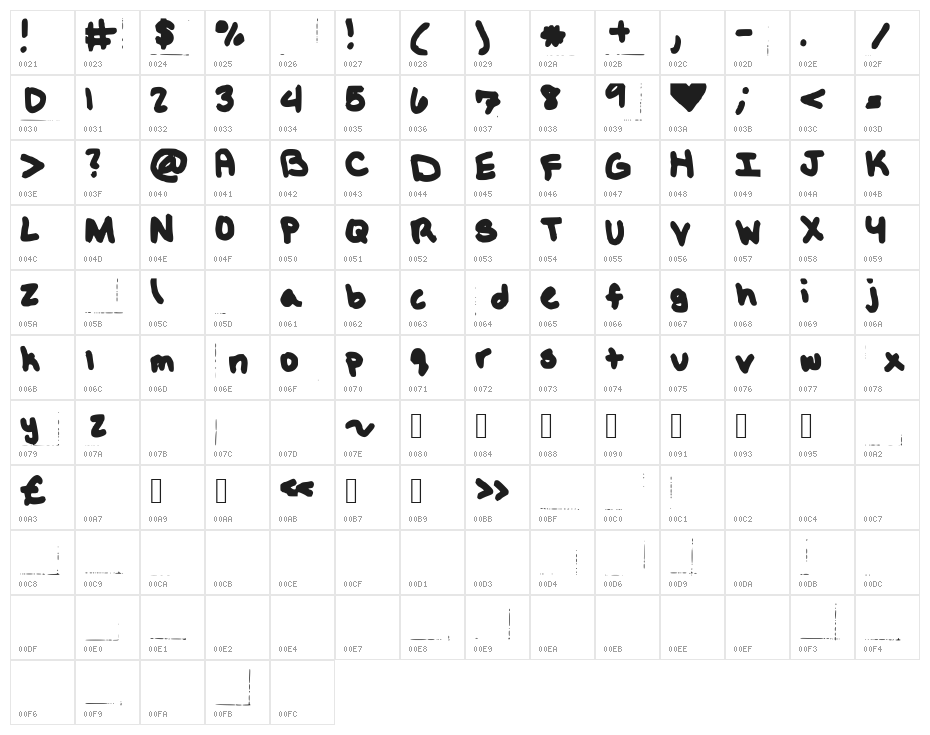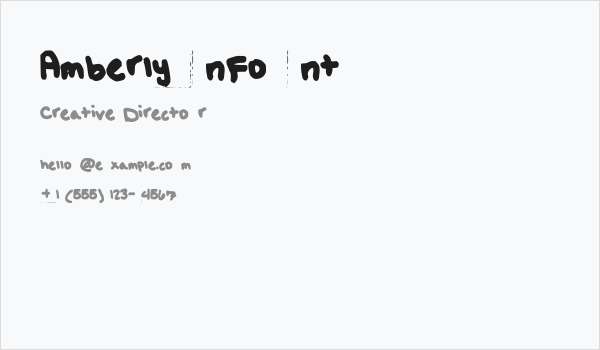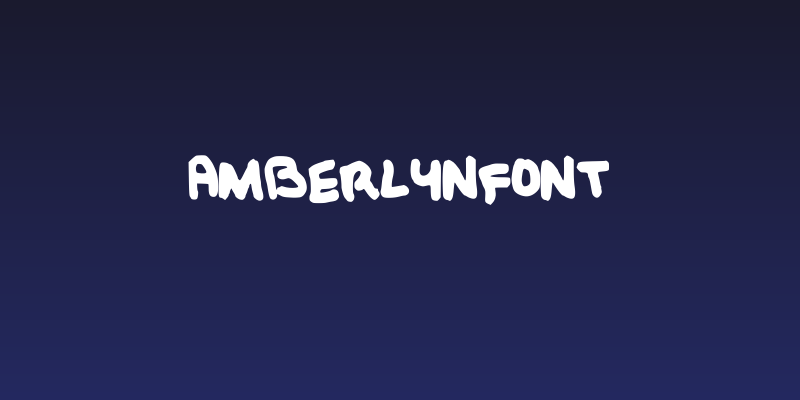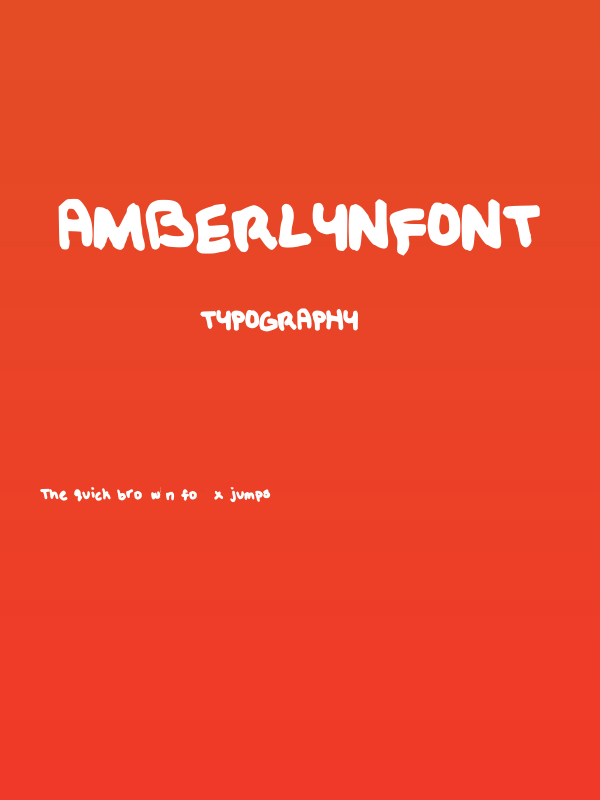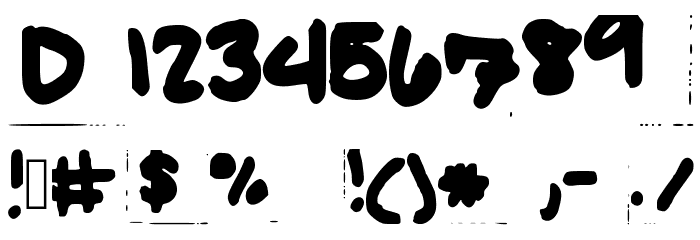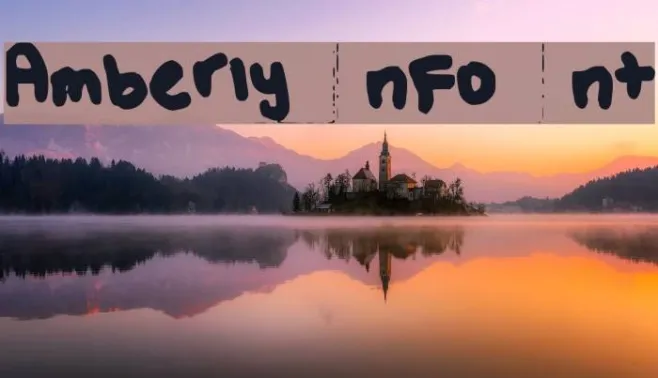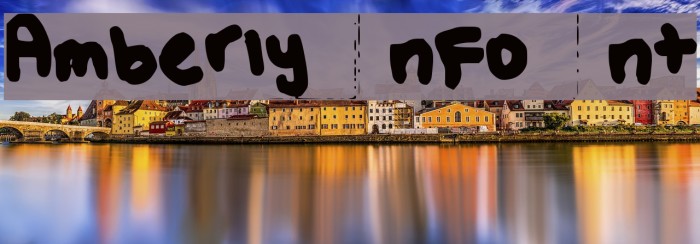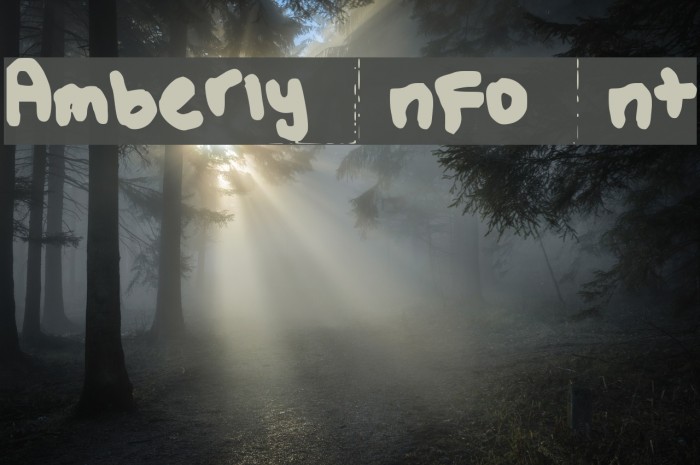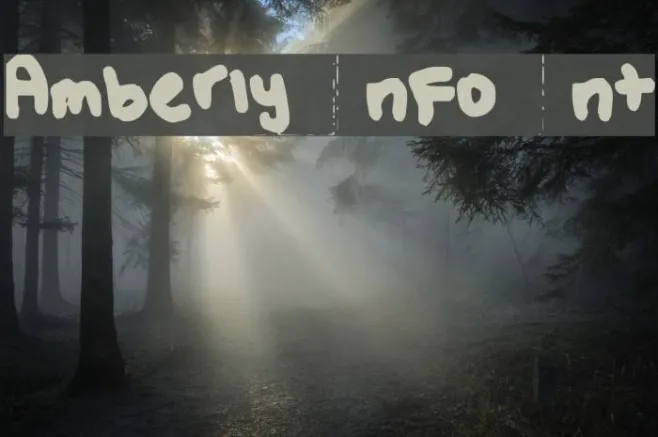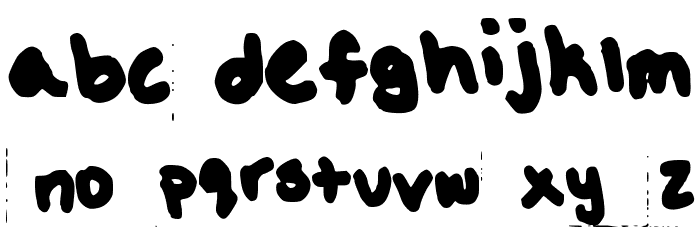
AmberlynFont Font
AmberlynFont Description
This font features a playful and bold handwritten style, characterized by its thick, rounded strokes and informal appearance. The letters are slightly irregular, giving it a casual and friendly vibe. It maintains a consistent weight throughout, with a noticeable lack of sharp edges, enhancing its approachable feel. The uppercase and lowercase letters are well-proportioned, and the numerals are clear and easy to read. Special characters are included, matching the overall style. This font is ideal for projects that require a personal touch or a fun, lively aesthetic.
| Overall Style | Playful, Casual |
| Proposed Projects | Ideal for children's books, greeting cards, playful branding, and casual invitations. |